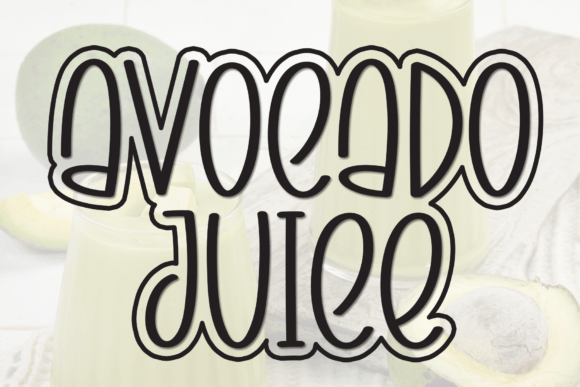
The Ultimate Guide to Avocado Juice Font: Adding a Relaxed Vibe to Your Designs
I’ll never forget the time I was working on a fun project for a trendy juice bar. I needed a font that would capture the laid-back, playful atmosphere of their brand, but my usual go-to fonts just weren’t cutting it. That’s when I stumbled upon Avocado Juice Font, and it was love at first sight! 💕
Avocado Juice is a casual display font that brings a relaxed and playful vibe to any project. Its bold, approachable letterforms make it perfect for headlines, posters, and branding. The font’s easygoing style effortlessly captures a sense of fun and spontaneity, enhancing any creative work.
Honest Review: What I Love (and a Few Quirks)
- ✅ Extremely easy to read, even in larger sizes
- ✅ Highly versatile and adaptable to different design contexts
- ✅ Unique, hand-crafted feel that sets it apart from more generic fonts
- ✅ Perfect for headlines, titles, and short paragraphs
- ⚠️ May not be the best choice for body text or longer paragraphs
- ⚠️ Some characters may appear a bit cramped or uneven in certain sizes
One of the best things about Avocado Juice Font is its support for OpenType features and glyphs. These features allow you to add extra visual interest to your text, making it more engaging and dynamic. Some of the OpenType features you can explore include:
- Ligatures: These are special character combinations that can be used to replace certain letter pairs.
- Stylistic alternates: These are alternative character forms that can be used to add some extra flair to your text.
- Glyphs: These are special characters that can be used to add visual interest to your text.
The Story Behind Avocado Juice Font
Avocado Juice Font was created by a talented designer who wanted to capture the carefree spirit of a sunny day. Inspired by the laid-back vibes of California’s avocado culture, this font is all about embracing the fun and playful side of design. Whether you’re working on a branding project, a poster, or a social media graphic, Avocado Juice Font is the perfect choice to add a dash of personality and whimsy.
Q: Is Avocado Juice Font suitable for body text?
A: While Avocado Juice Font is perfect for headlines and titles, it may not be the best choice for body text or longer paragraphs.